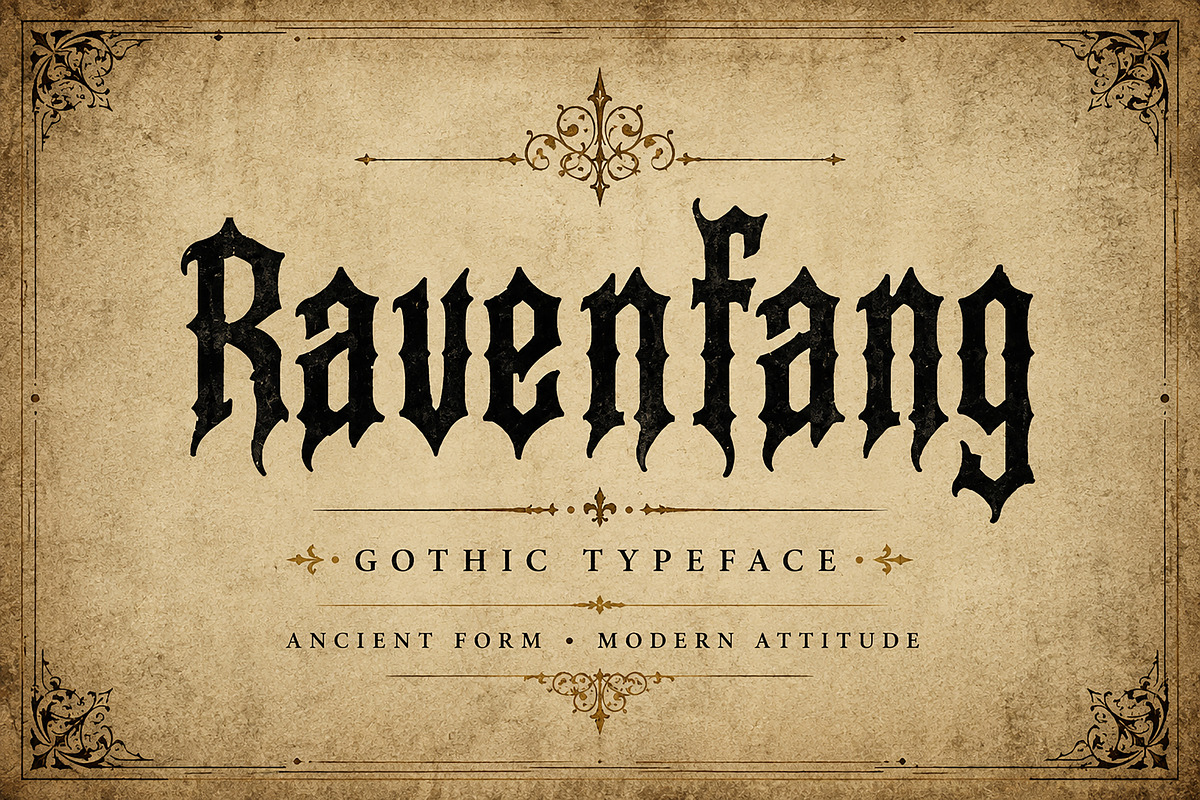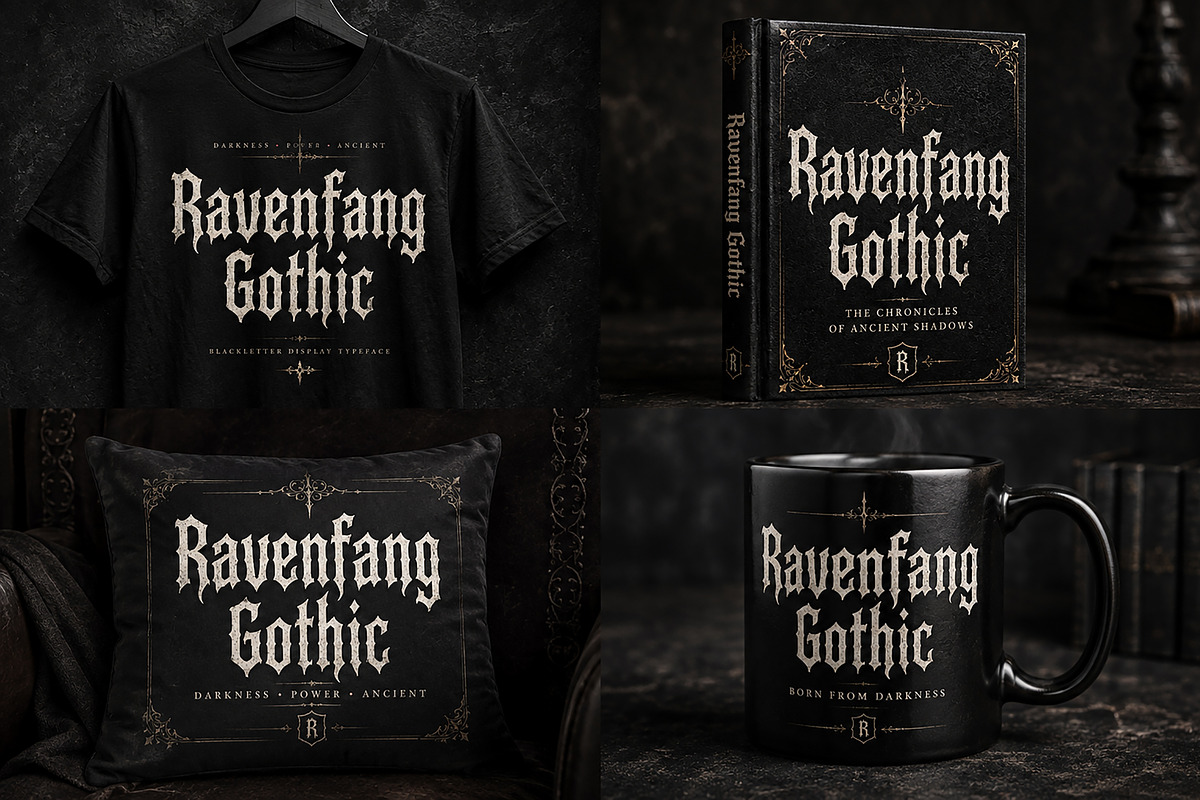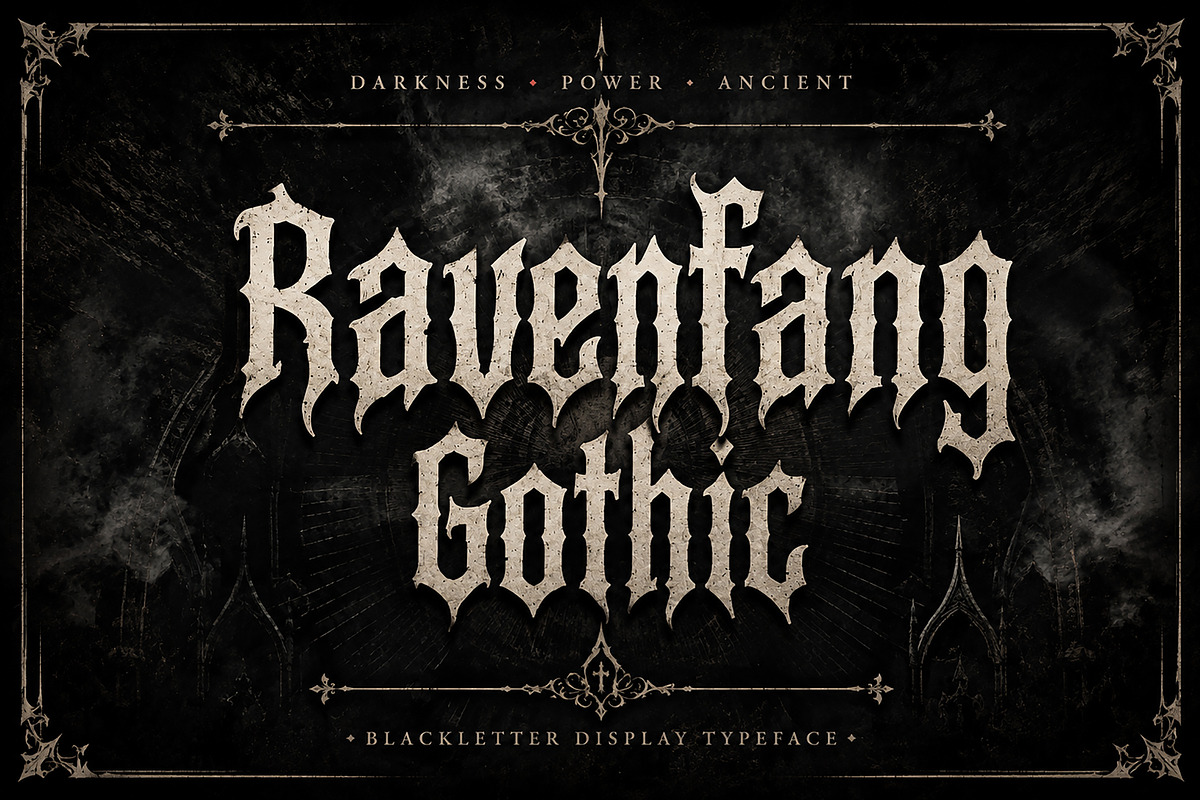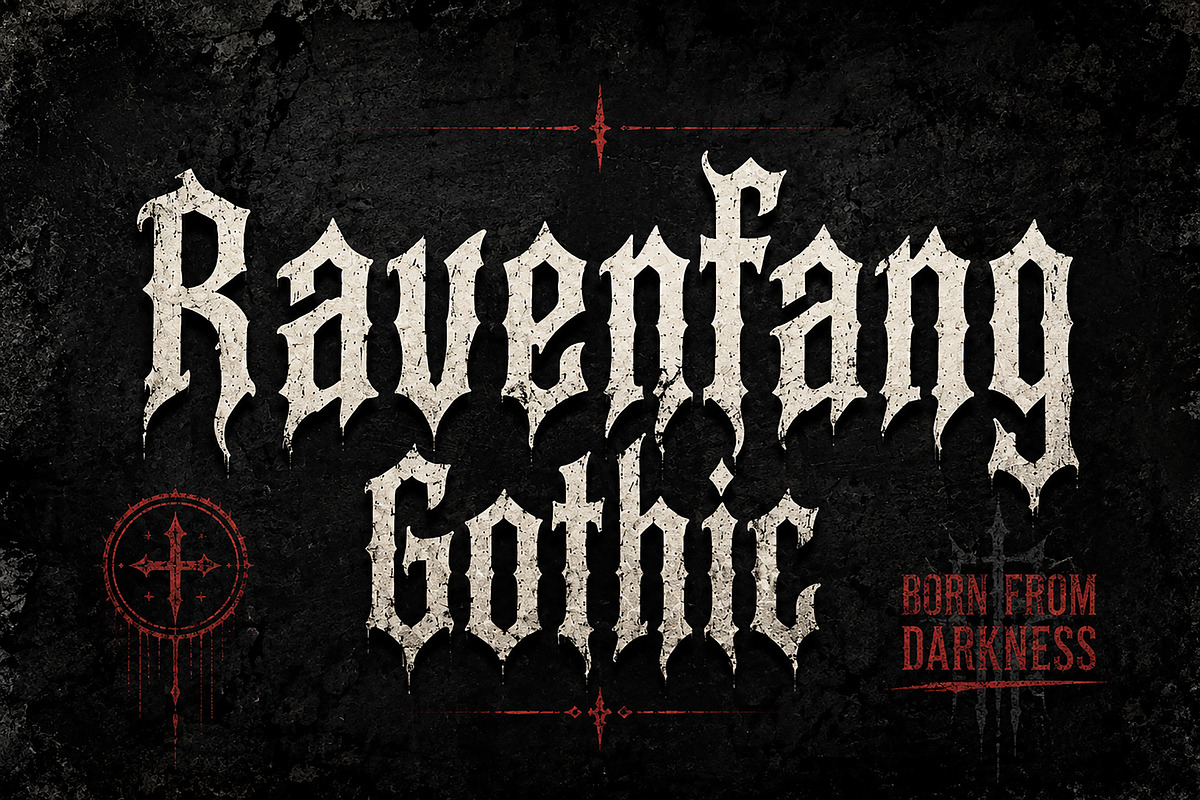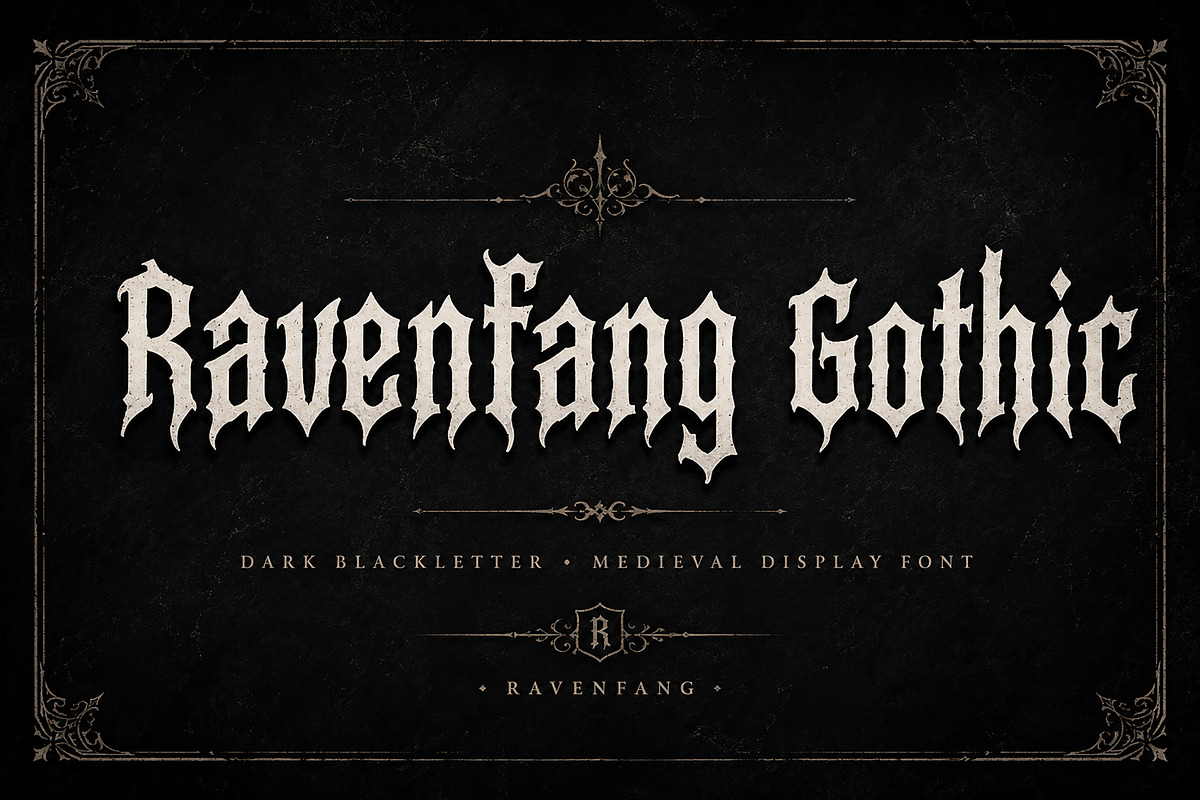
Ravenfang Gothic
Ravenfang Gothic is a bold and dramatic blackletter typeface inspired by medieval lettering, dark gothic aesthetics, and ancient typography. With its sharp, pointed details, strong vertical structure, and distinctive blackletter character, Ravenfang Gothic brings a powerful and mysterious personality to any design.
Designed to make a strong visual impact, this typeface is perfect for creating gothic logos, band identities, album artwork, posters, apparel graphics, tattoo designs, book covers, merchandise, labels, branding, and dark editorial designs.
Its dramatic letterforms work especially well for projects that need an ancient, rebellious, luxurious, mysterious, or dark medieval atmosphere.
Gothic & Medieval Branding
Band & Music Branding
Album Covers
Posters & Flyers
T-Shirt & Apparel Designs
Streetwear Graphics
Tattoo-Inspired Designs
Book & Novel Covers
Labels & Badges
Dark Fashion Editorials
Halloween Designs
Medieval-Themed Projects
Bold Blackletter / Gothic style
Sharp and distinctive letterforms
Strong medieval-inspired aesthetic
Dramatic display typography
Suitable for headlines and branding
Perfect for both dark and premium visual styles
Designed for impactful display use
Ravenfang Gothic is an excellent choice for designers looking to create typography with a dark, powerful, medieval, and unforgettable visual presence.